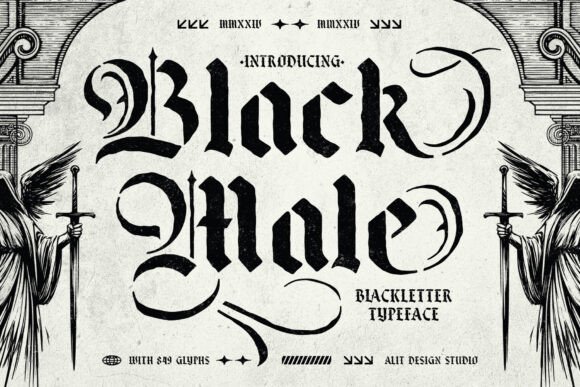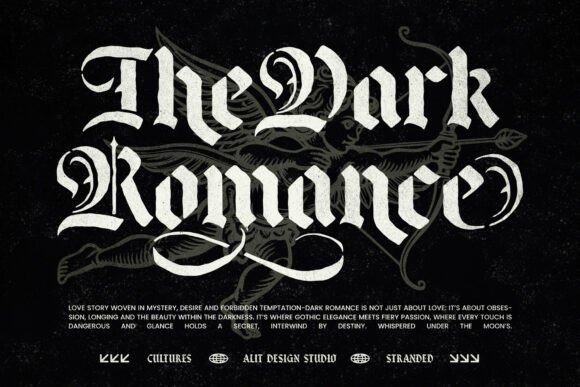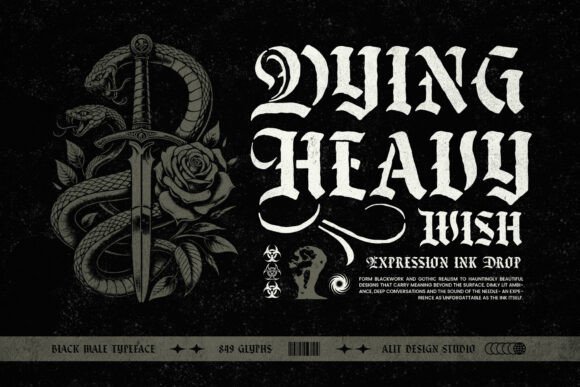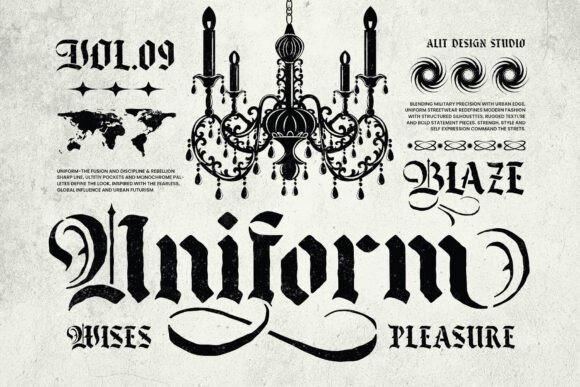
About the Black Male  Font
Presenting Black Male  Font, a unique and stylish typeface that will make your work stand out. Black Male is a meticulously designed blackletter stencil typeface, crafted to bring the perfect balance between historical calligraphy and modern industrial aesthetics. With a rich character set of 849 glyphs, this font provides extensive typographic options, including alternates, swashes, and ligatures for maximum design flexibility.
The stencil aspect is carefully engineered to ensure that every cut remains structurally sound, making it an ideal choice for screen printing, engraving, laser cutting, vinyl lettering, and more. Whether used for branding, posters, apparel, tattoos, or medieval-inspired artwork, Black Male delivers a timeless yet edgy visual impact.
Perfect For:
🔹 Gothic & Vintage Designs – Ideal for medieval, fantasy, and old-world aesthetics.
🔹 Streetwear & Apparel – A bold typeface that makes an impact in fashion and branding.
🔹 Tattoo & Artistic Designs – A perfect fit for intricate, edgy artwork.
🔹 Signage & Cut-out Applications – Specially designed to work flawlessly with stencil cutting and engraving.
🔹 Metal & Wood Engraving – Precision-designed for crafting, printing, and laser applications.